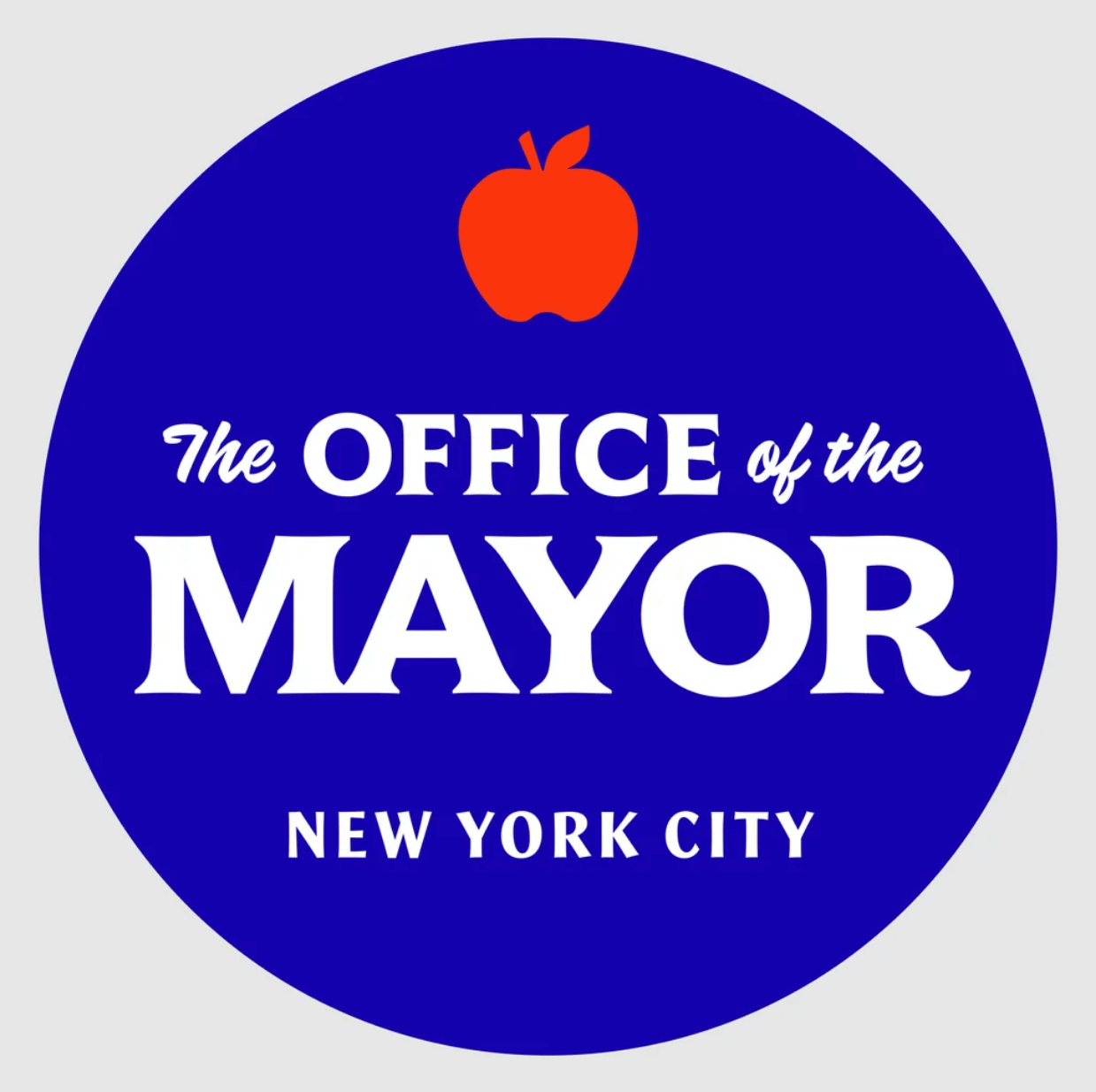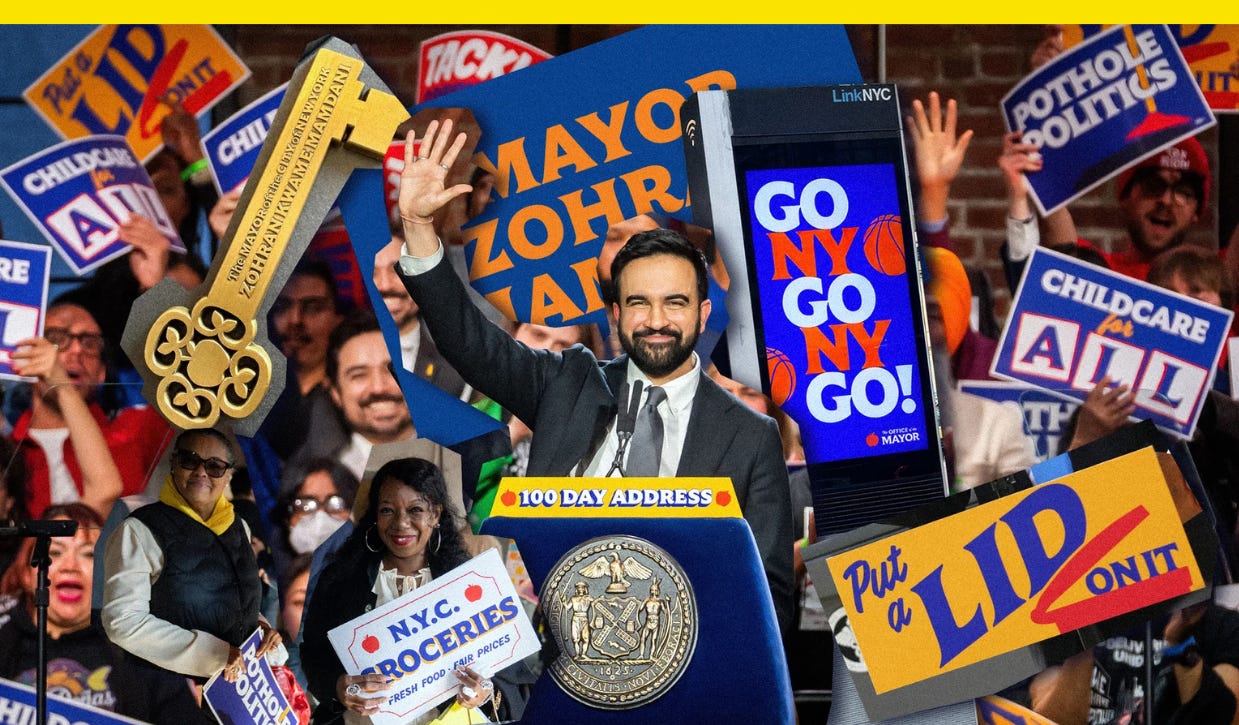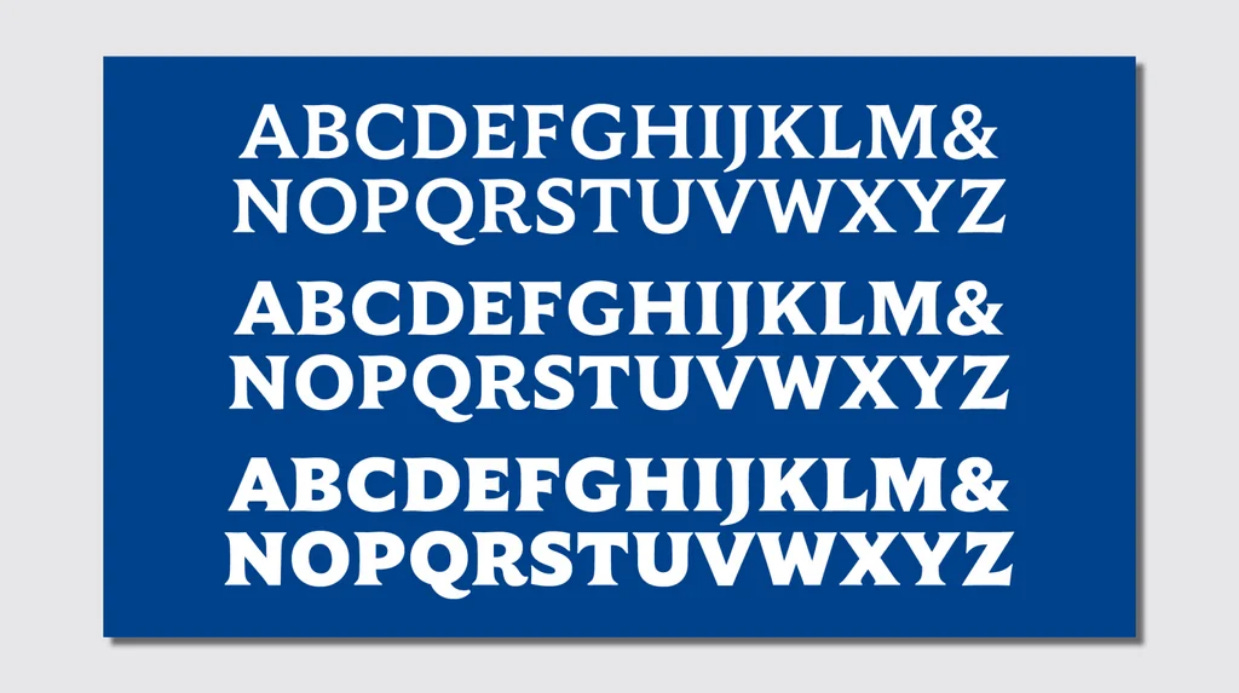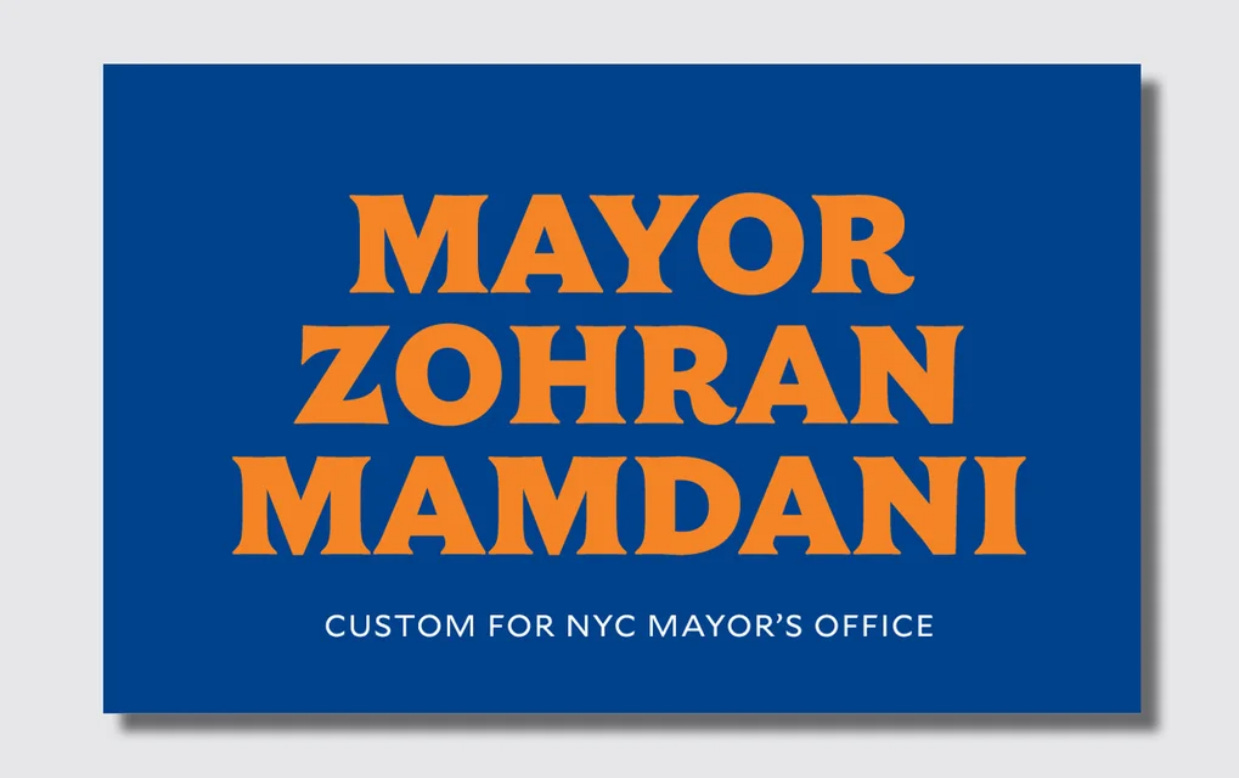
Zohran Mamdani has a new font as New York mayor
New York Mayor Zohran Mamdani gave the NBA Championship-winning New York Knicks keys to the city last week, and while that tradition is centuries old, the keys themselves displayed something new.
The text written across the front was set in a new version of the serif typeface Empirica, custom made for the Mayor’s office and designed by the type foundry Frere-Jones Type (its founder, Tobias Frere-Jones, designed the typeface Gotham, arguably the most famous font in politics). Now, Frere-Jones and his team have adapted Mamdani’s campaign type for a new era of progressive leadership.
Empirica, originally released in 2018, was designed by Frere-Jones and Nina Stössinger with contributions from type designers Fred Shallcrass and Devyani Mahadevan. It’s based on references to Ancient Roman inscription forms, and later interpretations of those forms in France in the 1800s. But when Mamdani’s office reached out to Frere-Jones Type about typography for its public-facing communication, the foundry recommended a modified version.
“We talked about some sort of modifications to individual characters we could make to bring in some of that painterly spirit,” type designer Tobias Frere-Jones tells me, referring to the campaign branding’s original inspiration from New York City store signage. Now, the mayor’s office has a version of Empirica that’s all its own.
The foundry worked on the new version of the font with designer Aneesh Bhoopathy, who designed Mamdani’s campaign branding. The result sits somewhere between stiff, traditional Roman type and Mamdani’s more personable, signage-inspired campaign fonts designed by Matthew Hinders-Anderson that’s a bit more formal for official use.
“Empirica provides this very authoritative, historical sort of representative voice,” Stössinger says. The new edits made it more playful.
The team designed a new Z to be used in front of an O for “Zohran” that’s tilted to better fit the letters next to each other. The strokes of other letters have extra flourish and flare.
“If you look at the capital R, the way that the leg kind of swooshes out, there’s a joy in that that’s amplified in this version, and I think to me, that’s a really beautiful combination to what makes the city what it is,” Stössinger says.
While the type family was named for Roman Empire, it also, helpfully, looks like a lot of other typography around the city that gave us “Empire State of Mind.” Empirica is used at Manhattan’s Moynihan Train Hall, and its style is chiseled into buildings around the city.
“On a visual level, it kind of echoes a lot of patterns that are already visible in the city,” Stössinger says.
Mamdani’s modified Empirica made its soft launch at his first 100 days address where it appeared on signs and placards. It’s also appeared in videos on Link NYC kiosks, the “Put a Lid On It” campaign to put all trash in rat-proof containers by 2031, and in an apple logo that says “The Office of the Mayor.”
The keys given to the Knicks are decorated with an apple on the head of the key, and text that reads “The Mayor of the City of New York, Zohran Kwame Mamdani.”
The font isn’t just for logo type, signs, and mementos either; it works for heavy text too. The typeface is used in headlines and body copy in “Block by Block,” the housing plan Mamdani’s office released in May that calls for building 200,000 new affordable homes over 10 years and preserving an existing 200,000 units.
Typography played an important role in Mamdani’s distinctive campaign branding, spelling out his name and campaign promises in memorable lettering that was reminiscent of handpainted signs. But it’s rare to see a campaigning politician with good type take that same intentionality with them into office.
Mamdani’s mayoral fonts represent an evolution of his typographic voice from candidate to mayor. And while they by no means represent a complete rebrand, these nuanced refinements work well to both slightly adjust his positioning and create a visual throughline as he works to make good on campaign promises.